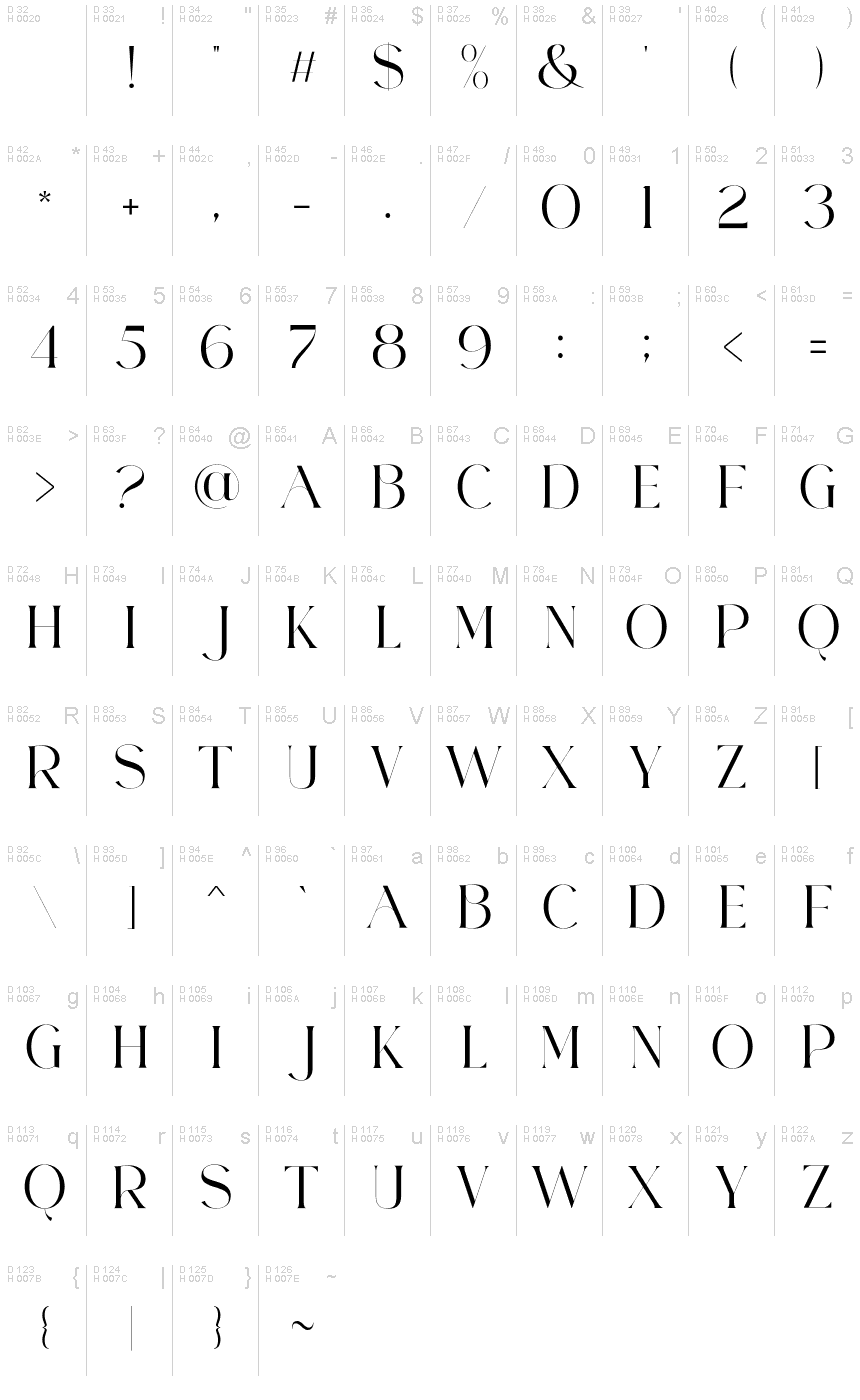
CHERMONI
Introducing CHERMONI, a stunning semi-light serif font designed by ToniStudio. With its beautiful typographical harmony, CHERMONI is the perfect choice for a range of design projects.
Its elegant and luxurious style makes it ideal for creating high-end logos and classy editorial designs. It also adds a touch of sophistication to women's magazines, fashion brands, and cosmetic brands. From modern advertising to invitation cards and art quotes, CHERMONI brings an air of elegance to any project. Whether it's book titles or special events, tote bags or advertisements, this font will make your designs stand out.